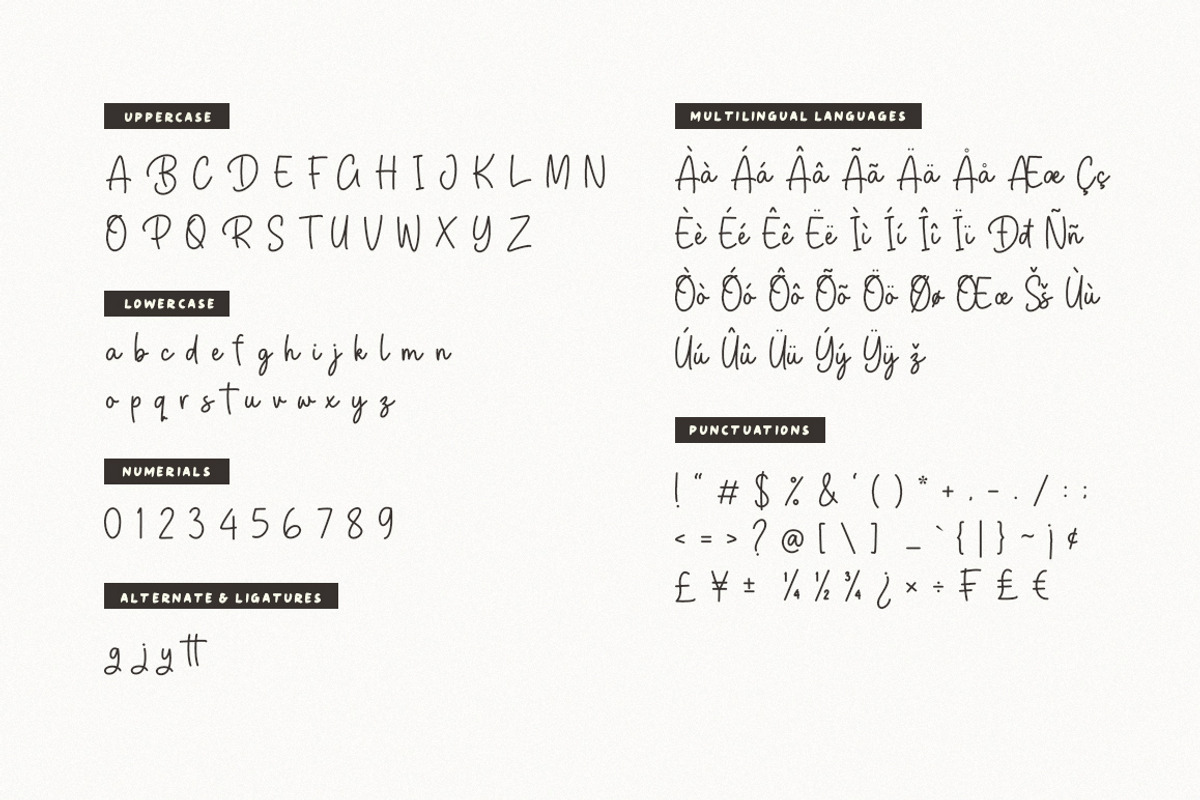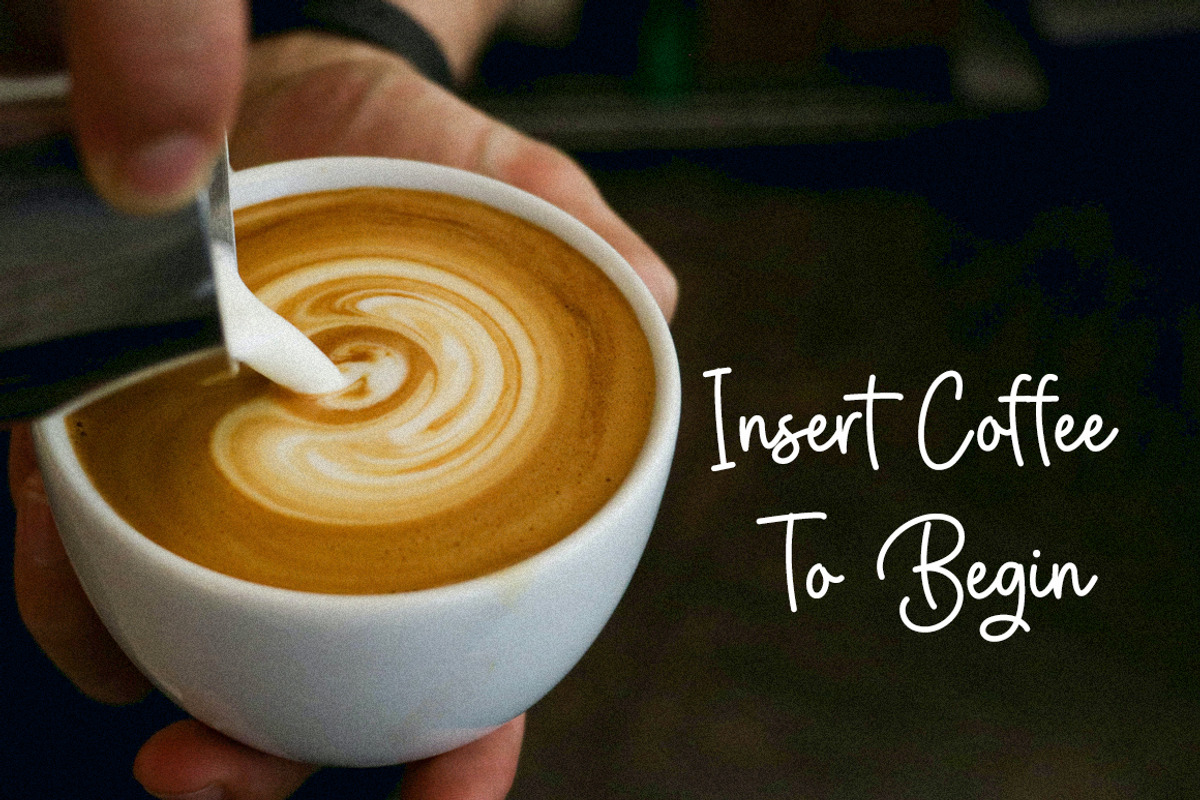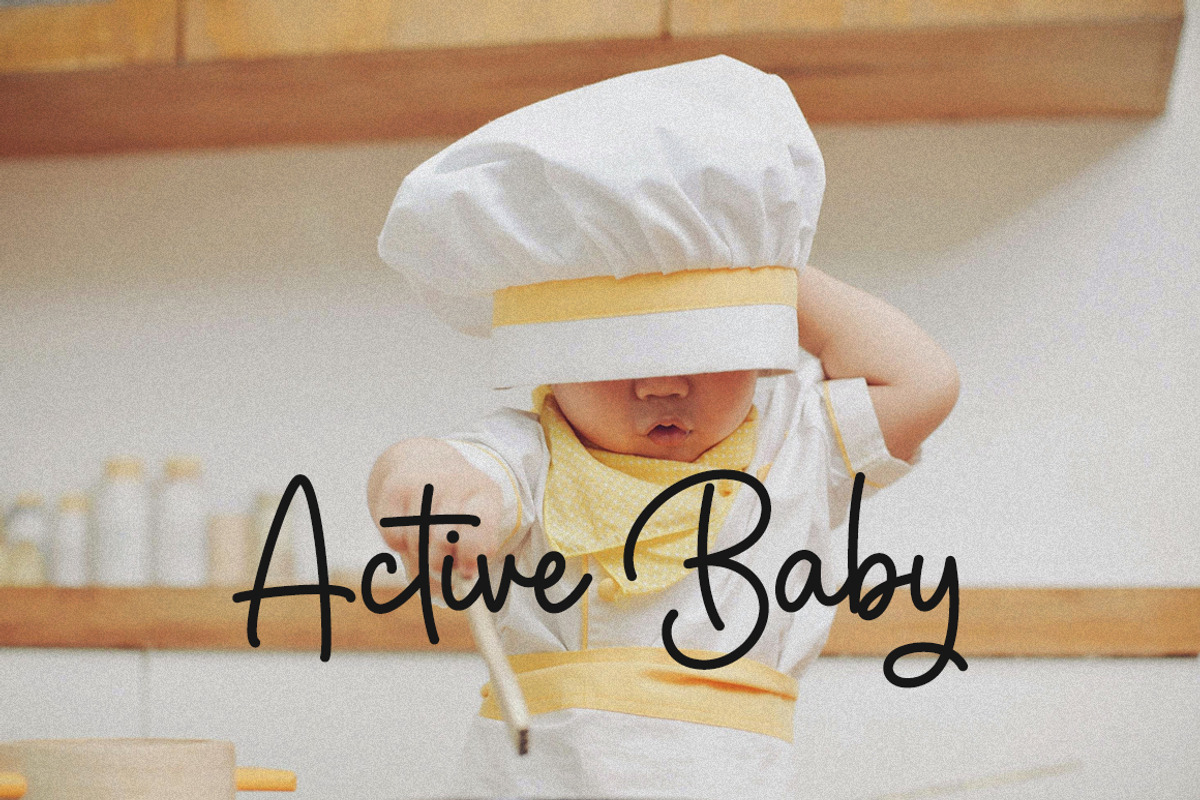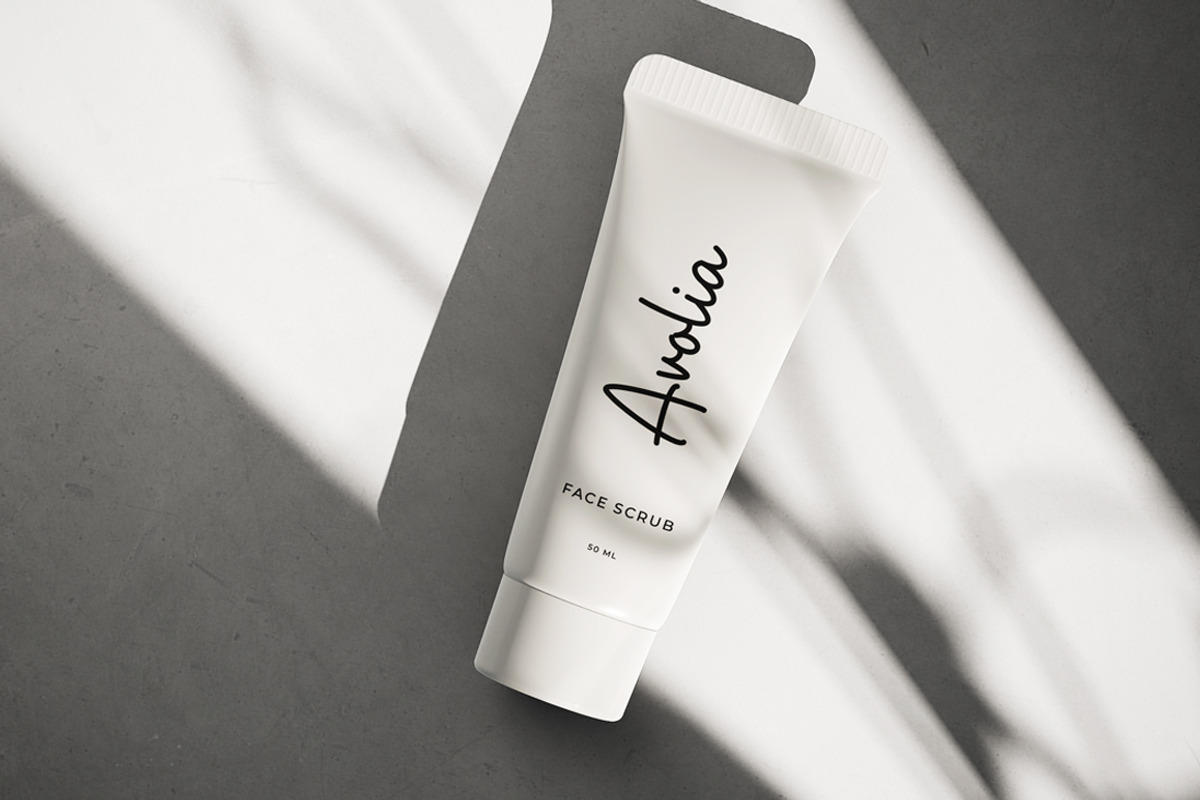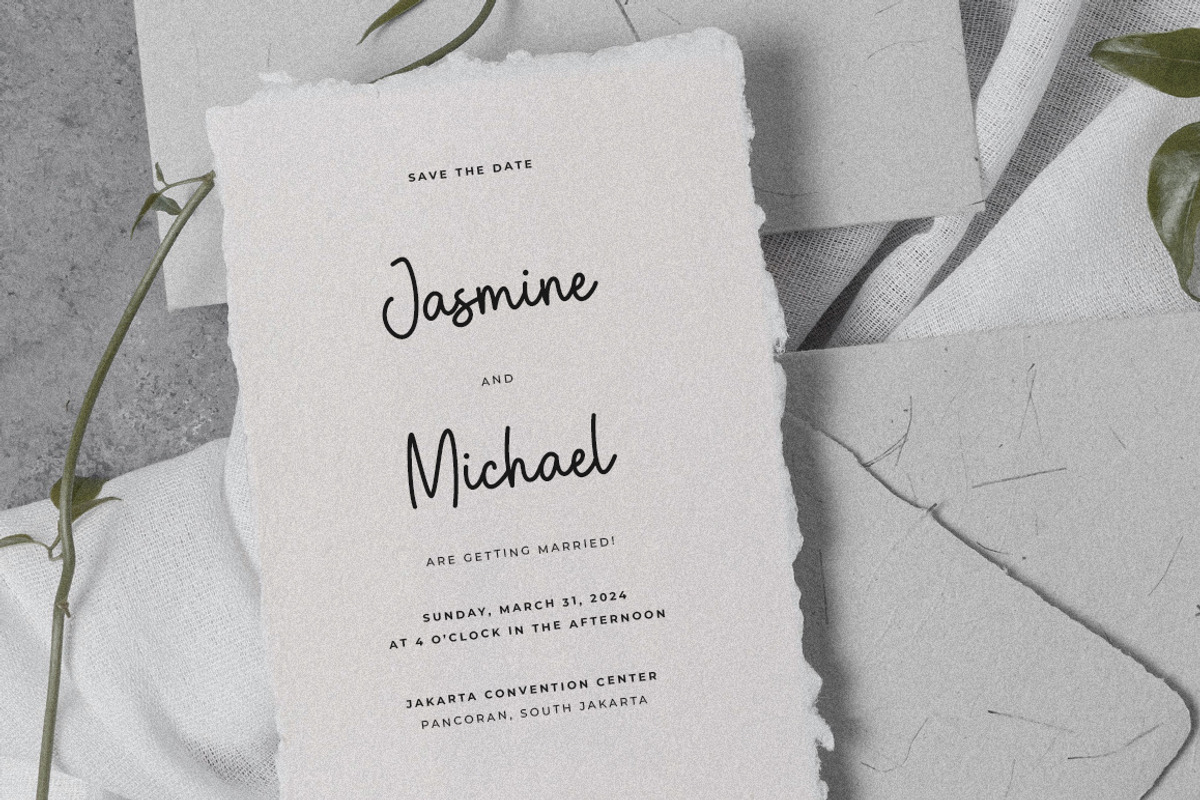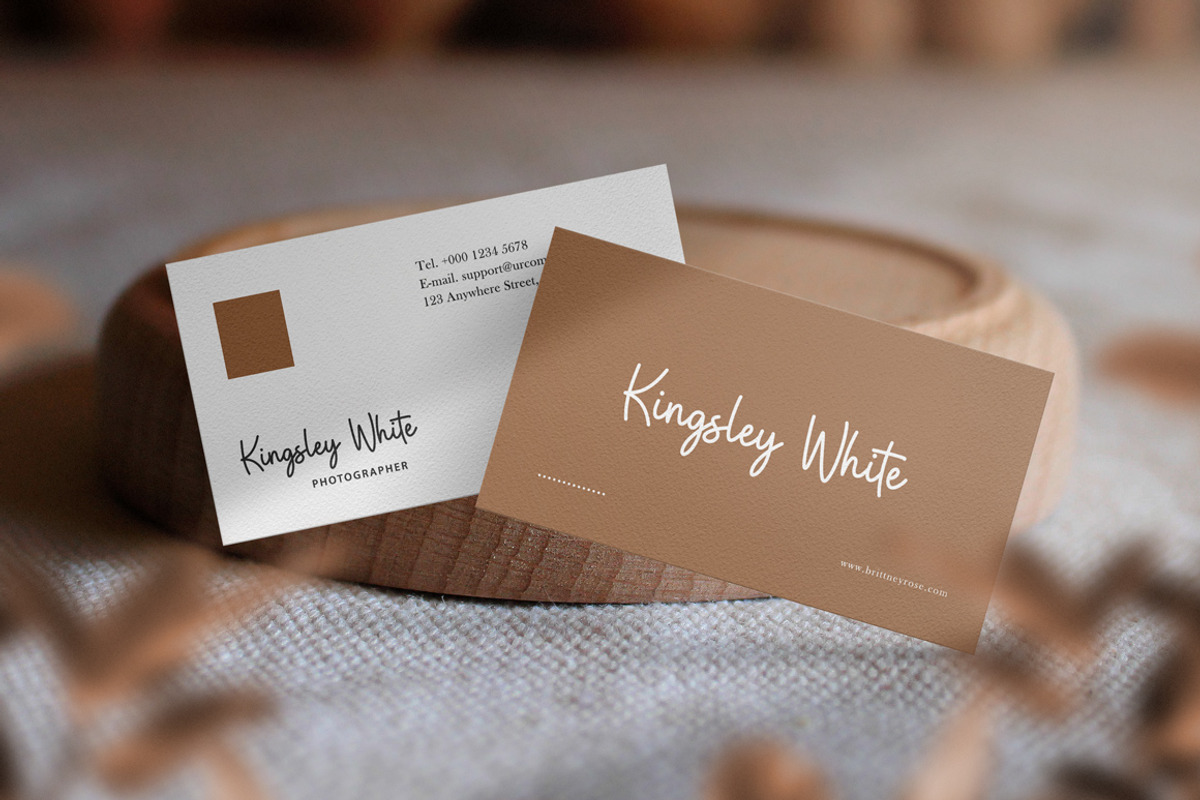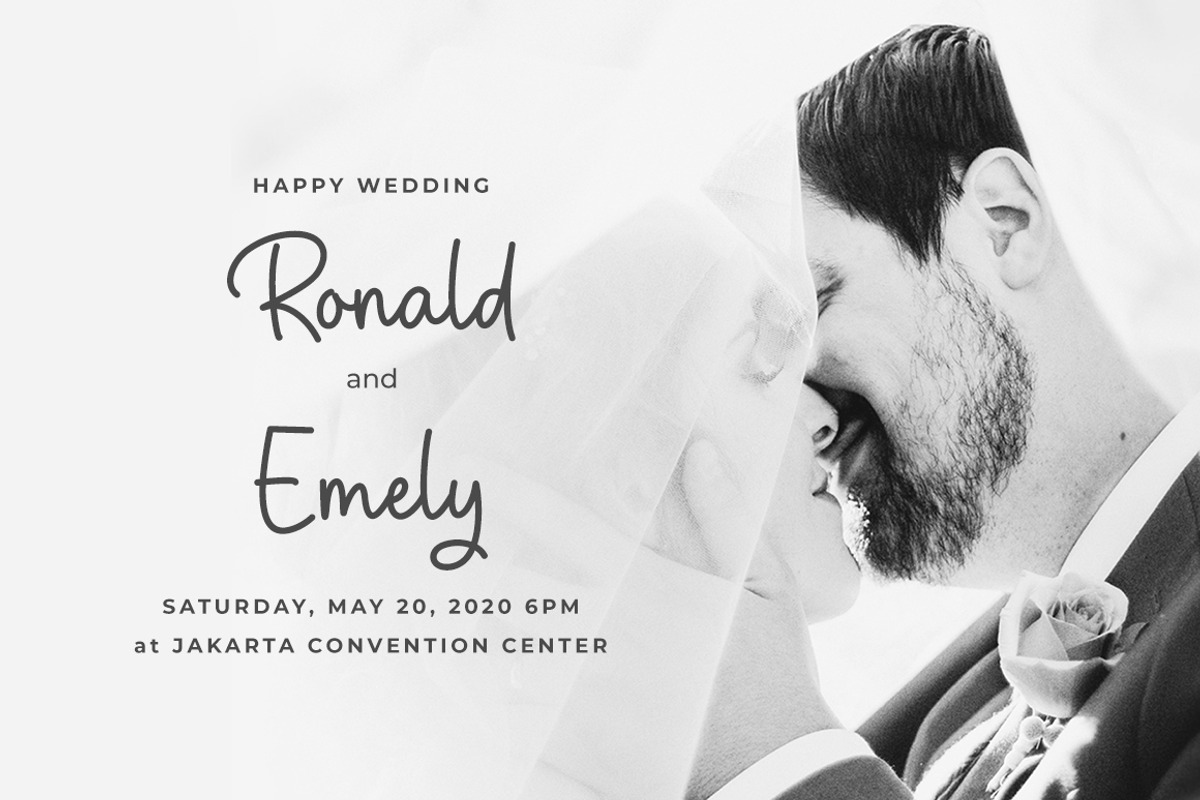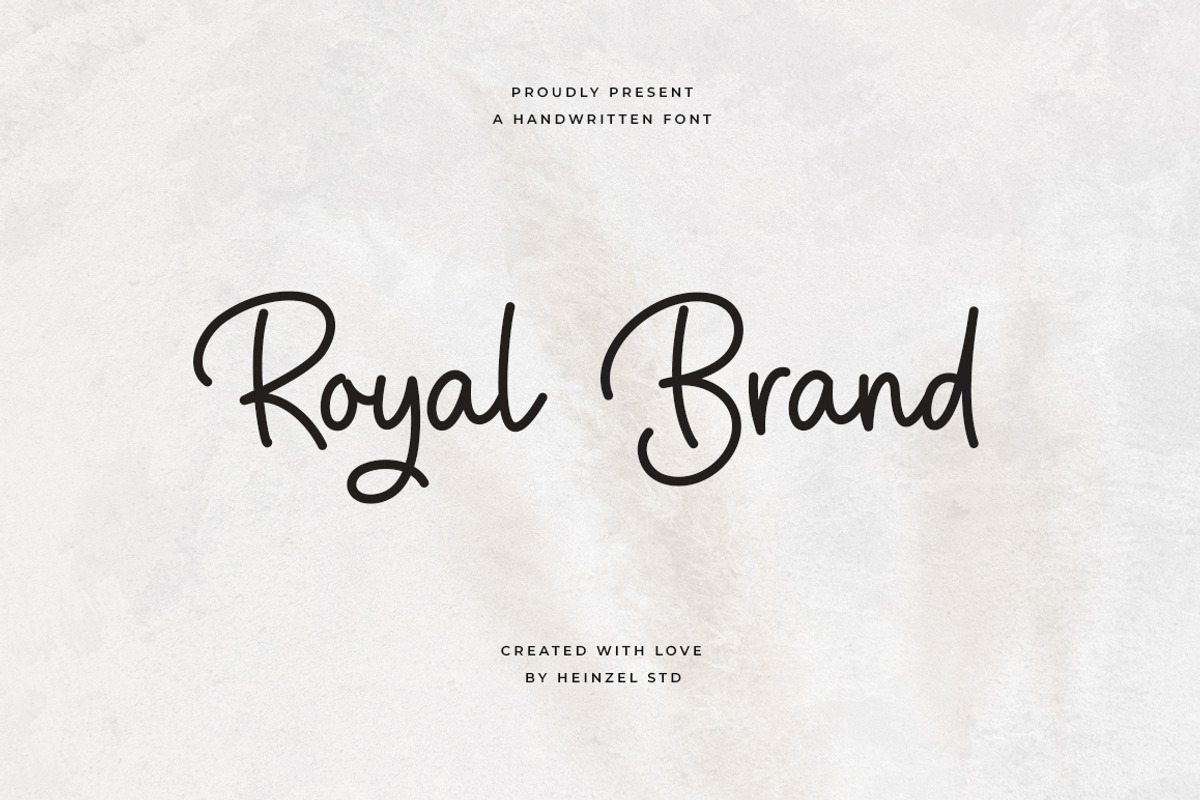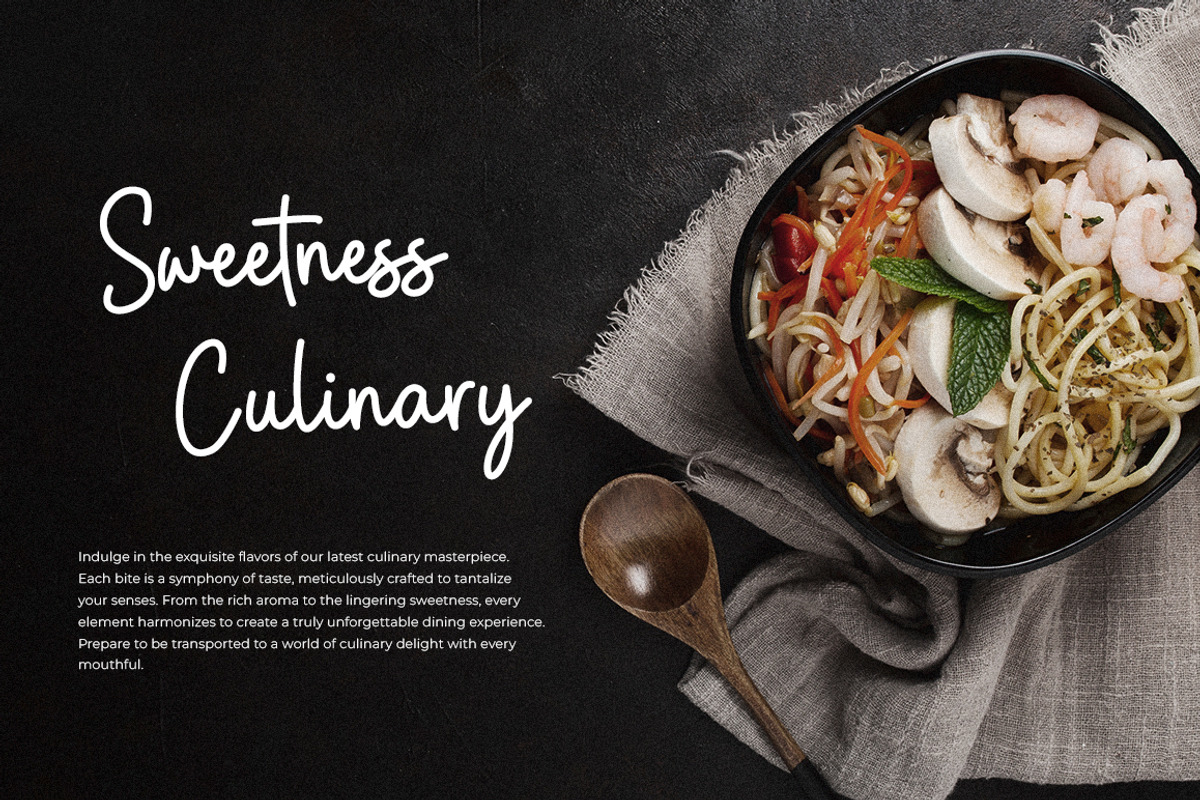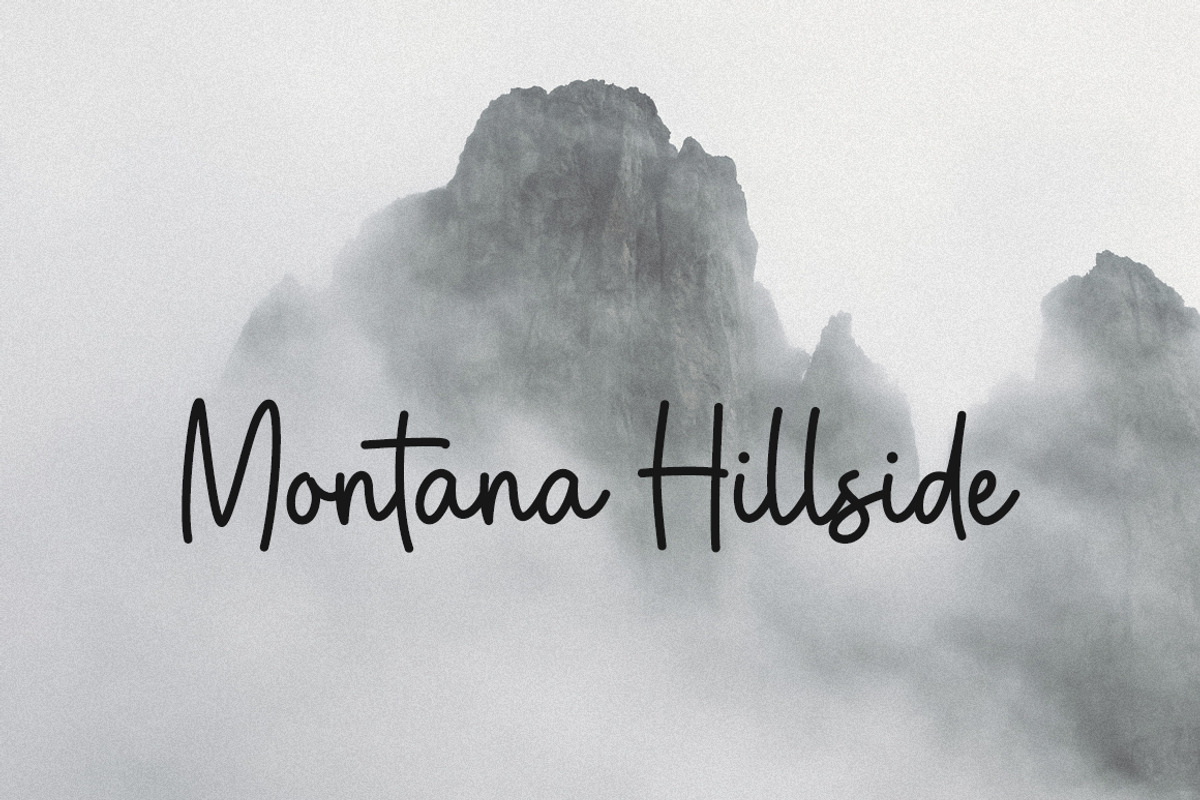
Royal Brand - Handwritten Font
Royal Brand is a flowing handwritten font, described by an elegant touch, perfect for your favorite projects. It looks stunning on wedding invitations, thank you cards, quotes, greeting cards, logos, business cards and every other design which needs a handwritten touch. Fall in love with its incredibly distinct and timeless style and use it to create spectacular designs!
This character set supports the following 21 languages:Afrikaans, Basque, Breton, Catalan, Danish, Dutch, English, Finnish, French, Gaelic (Irish, Scots), German, Icelandic, Indonesian, Irish, Italian, Norwegian, Portuguese, Saami (Southern), Spanish, Swahili, Swedish.